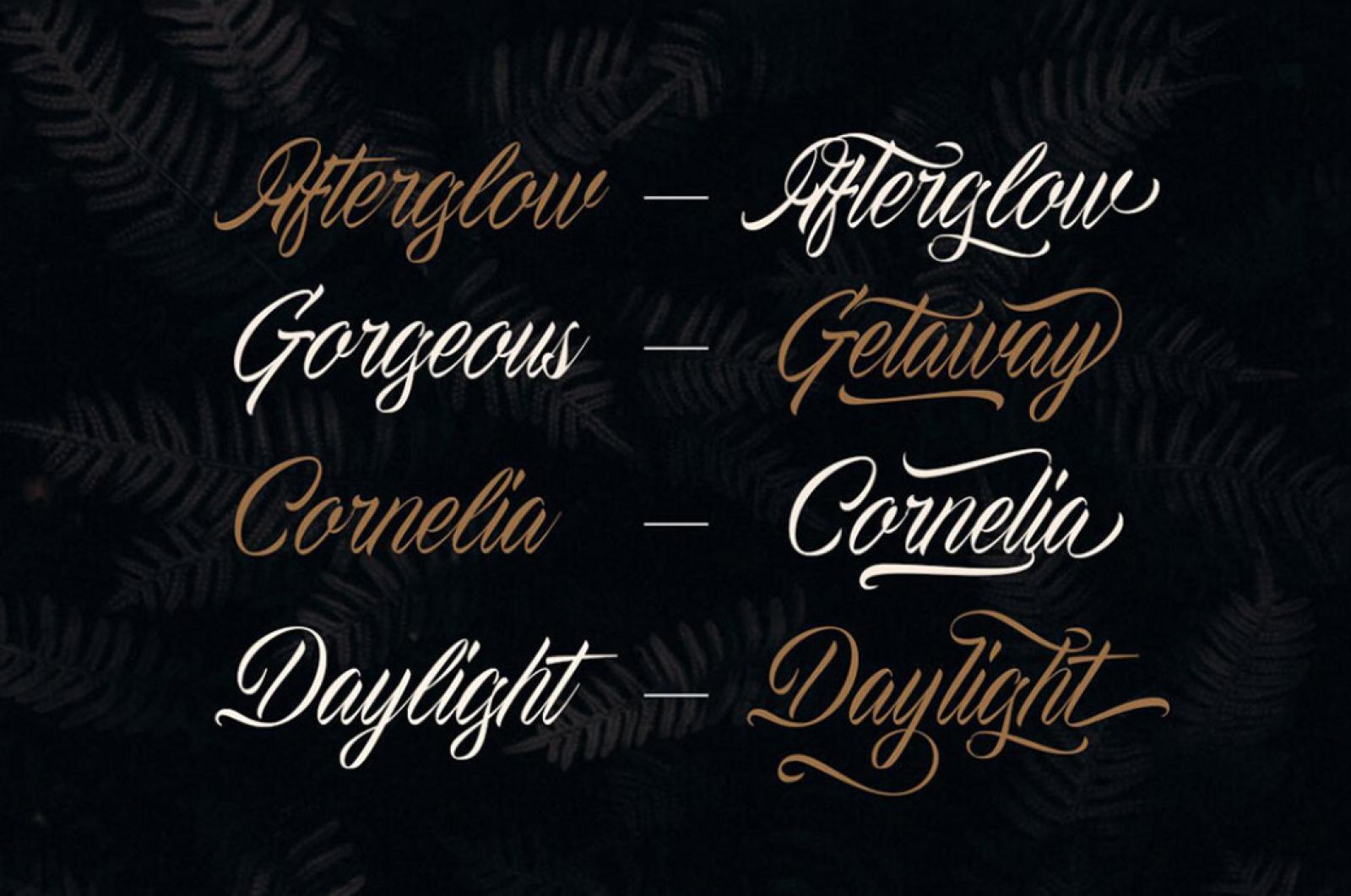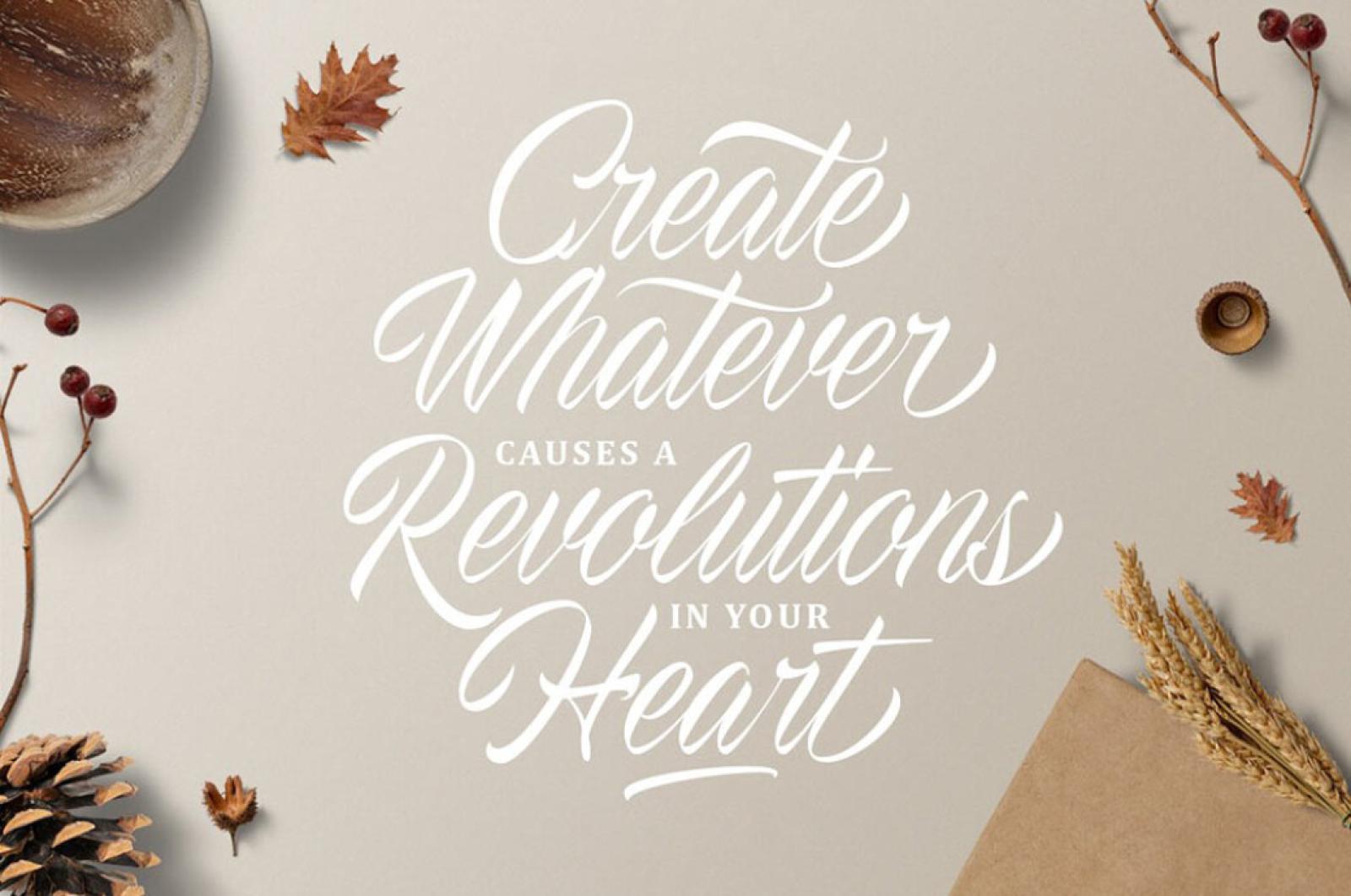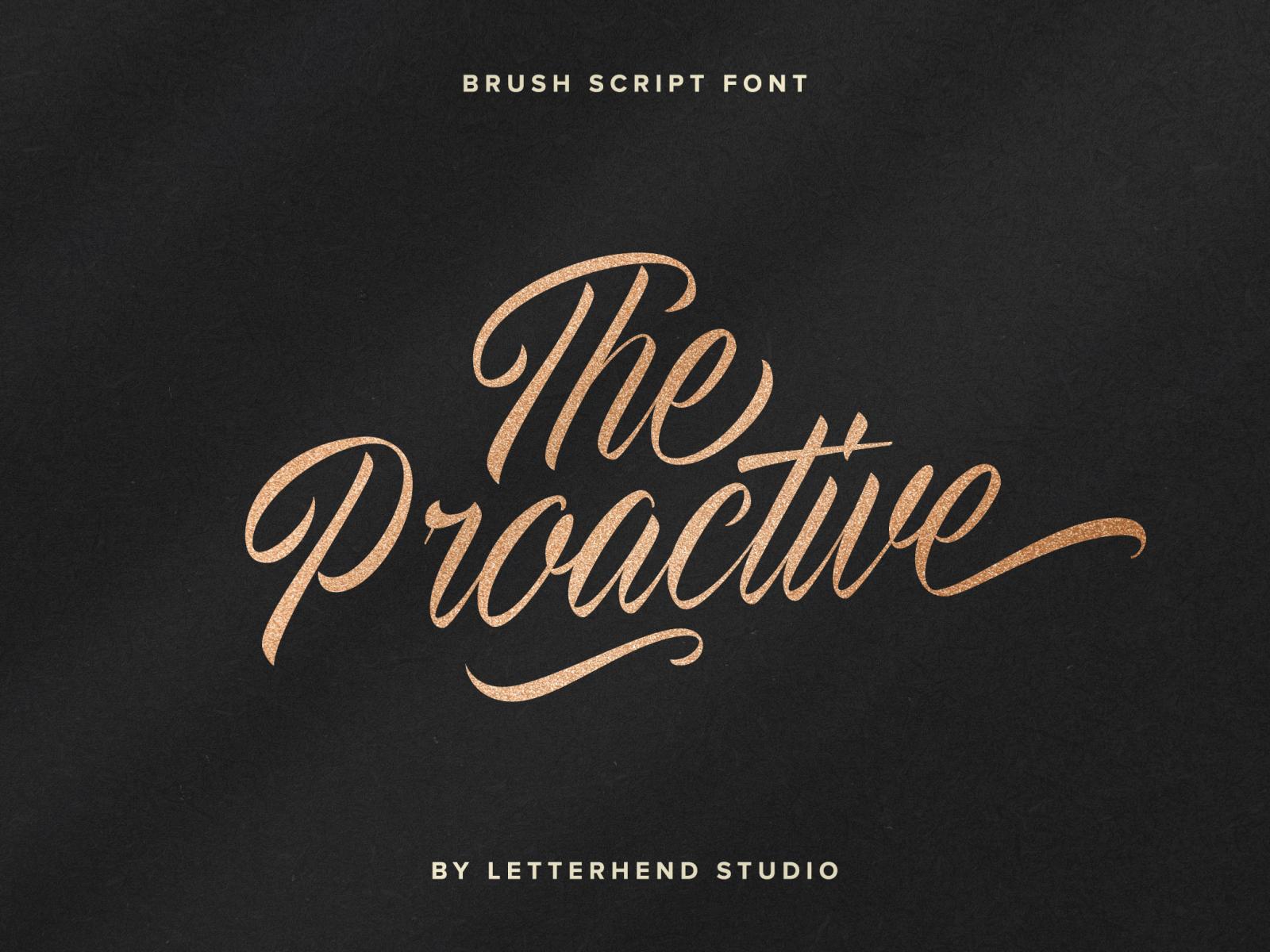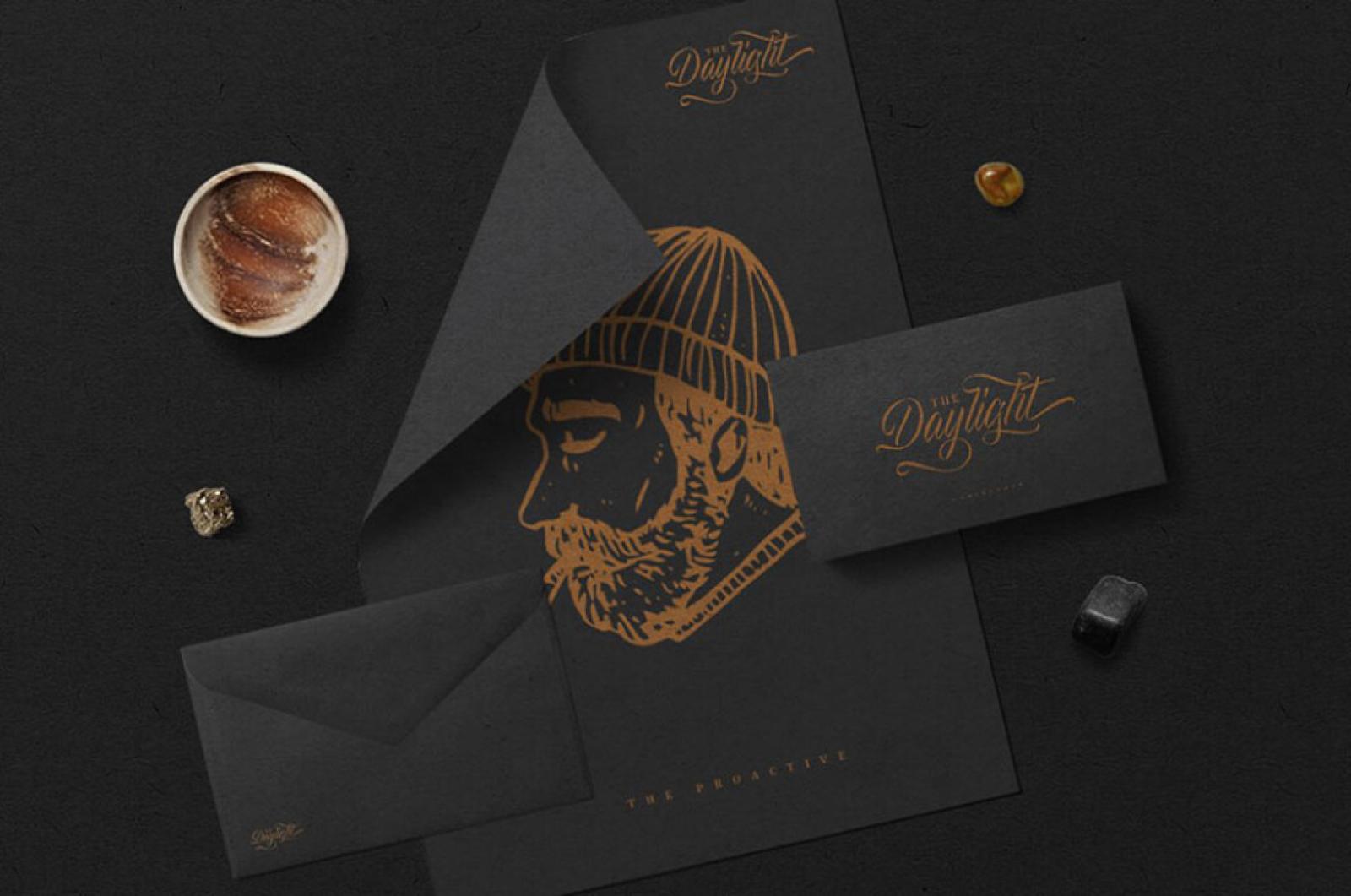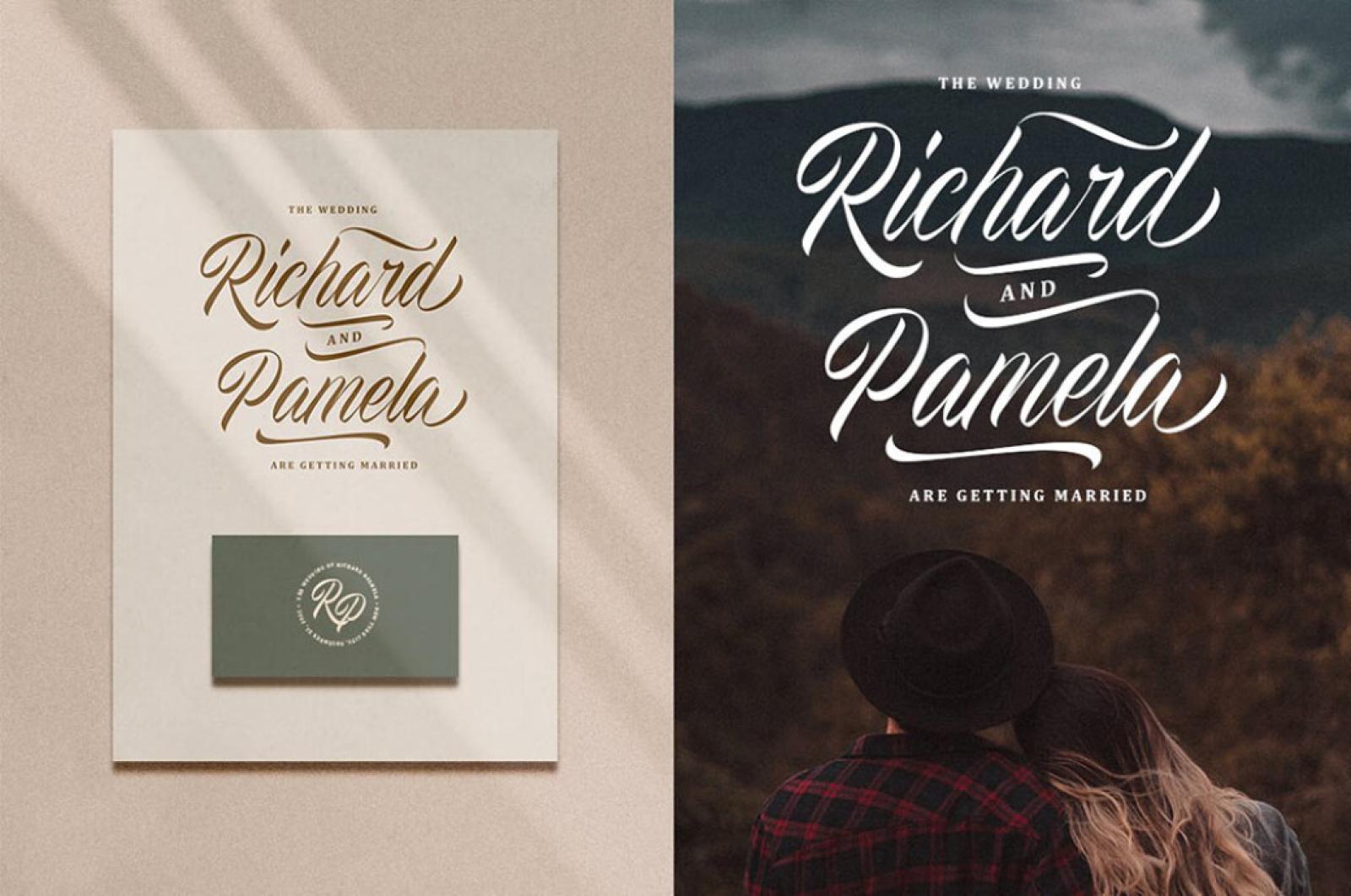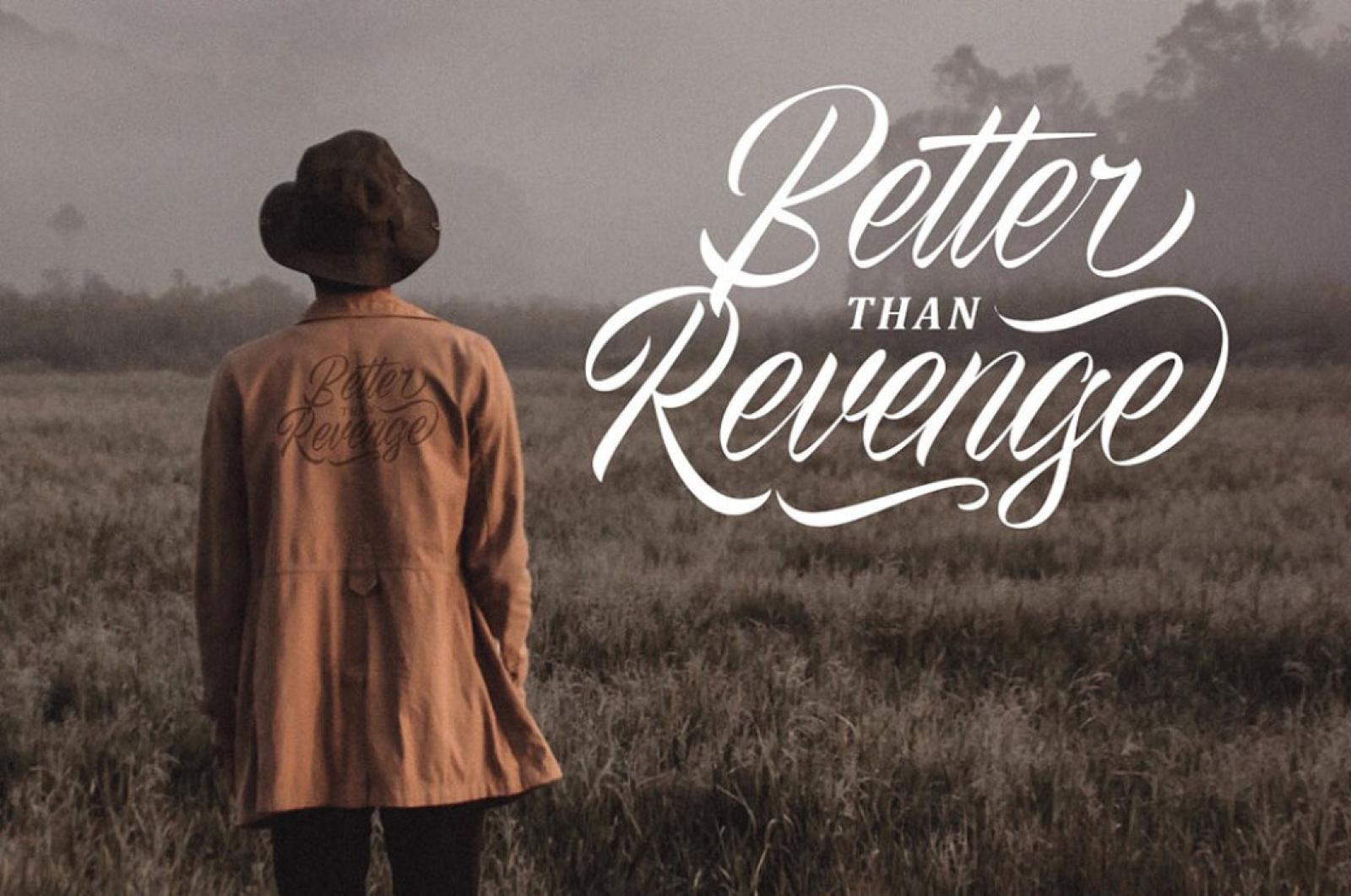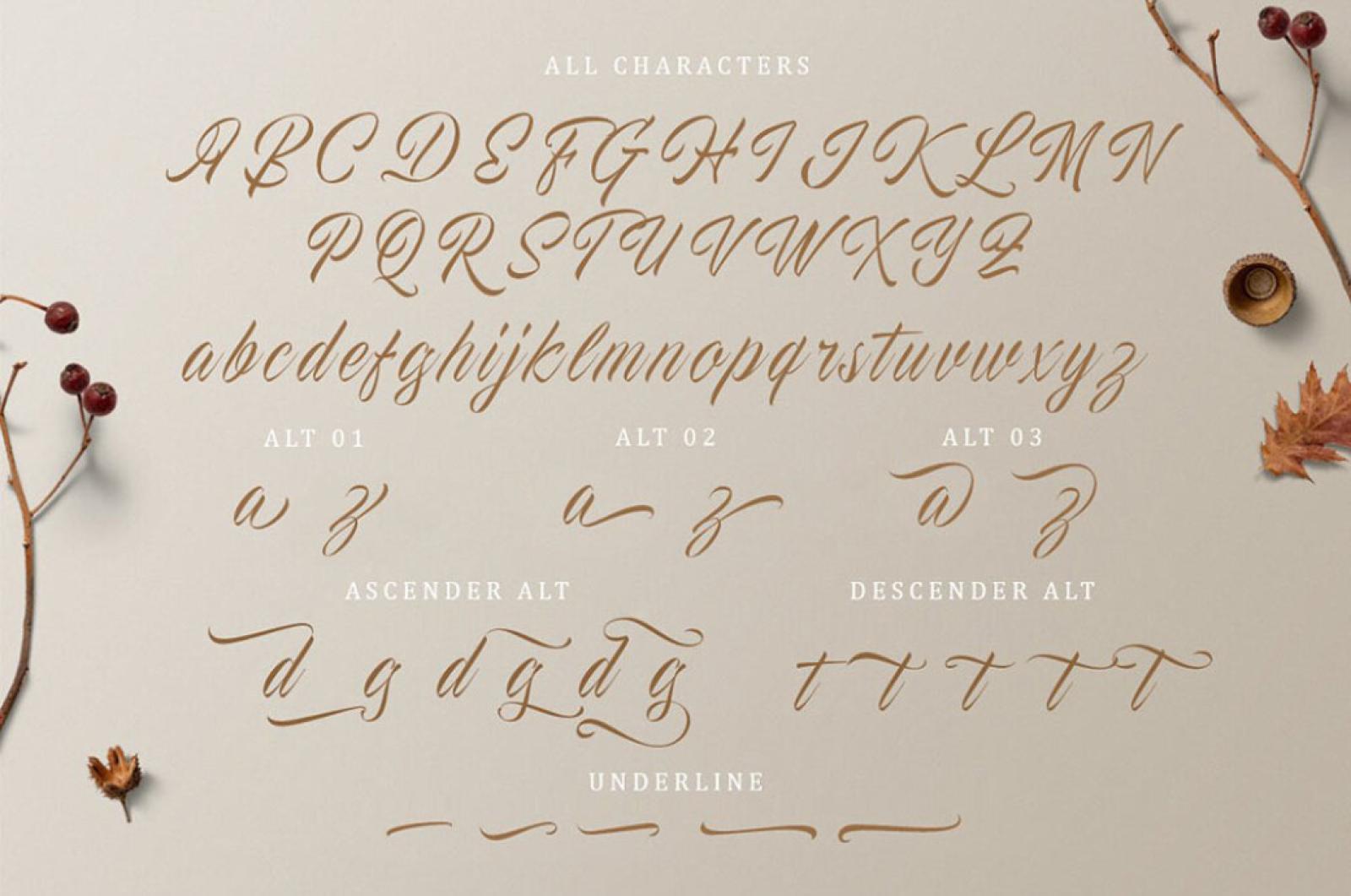
The Proactive Script Font
It's not just another font for your kit. In fact, it's a one of a kind script typeface! What makes it special is that the typeface was made from the original handwriting and transformed into a font.
You don't have to be an expert to be a hand-lettering artist: just use this font and voila, you can create your own brush calligraphy! Play around with the swashes and stylistic alternates to make this font stand out even more! Very suitable to be used as a headline, Instagram posts and stories signature, logos, book covers, greeting/wedding cards, packaging, fashion, stationery, novels, labels, or any type of advertising purpose.